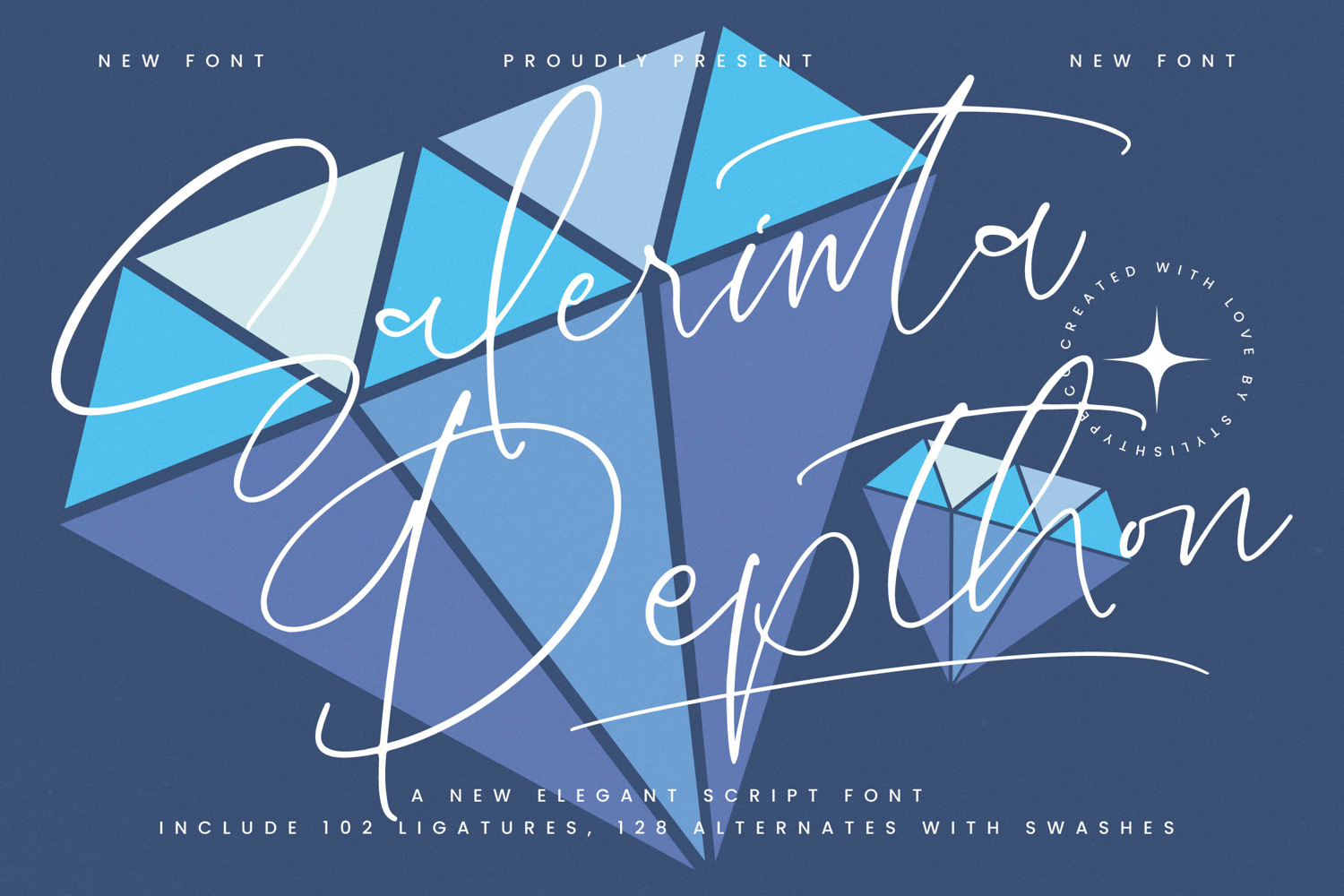
Salerinta Depthon - New Elegant Script Font
Salerinta Depthon - New Elegant Script Font includes over 100 ligatures and numerous stylistic alternates with expressive swashes, allowing designers to sculpt truly unique wordmarks. This extensive character set ensures smooth, seamless variation, enabling you to avoid repetition and maintain a stunning, cohesive flow across titles and detailed textual graphics. It is the definitive tool for bespoke typography and impactful headlines.